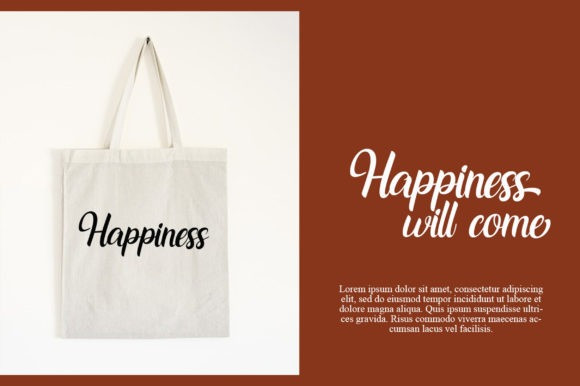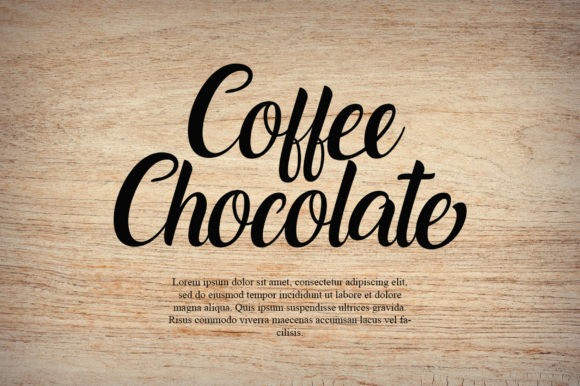
Higher Star Font
Higher Star Font is an amazing script that features natural curves. Use it to add a unique charm to any design project! This font was created for all forms of business and branding such as clothing, logos, skate boards and others according to your needs.